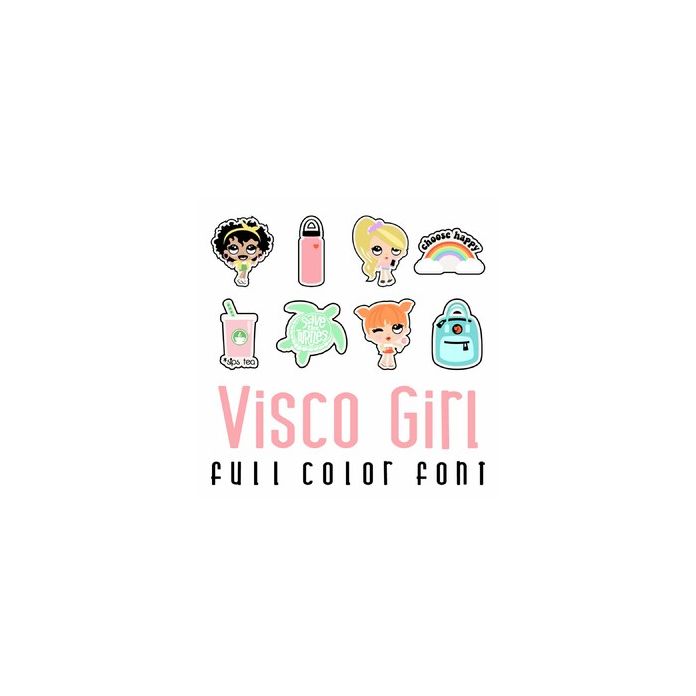
This adorable full color doodlebat font features adorable Vsco Girls and vsco girl icons. Perfect for cards, crafts, gifts, decor, scrap book pages, planner stickers and more!